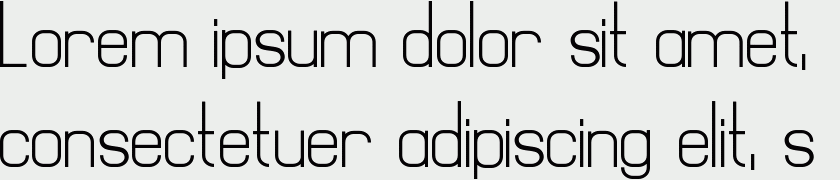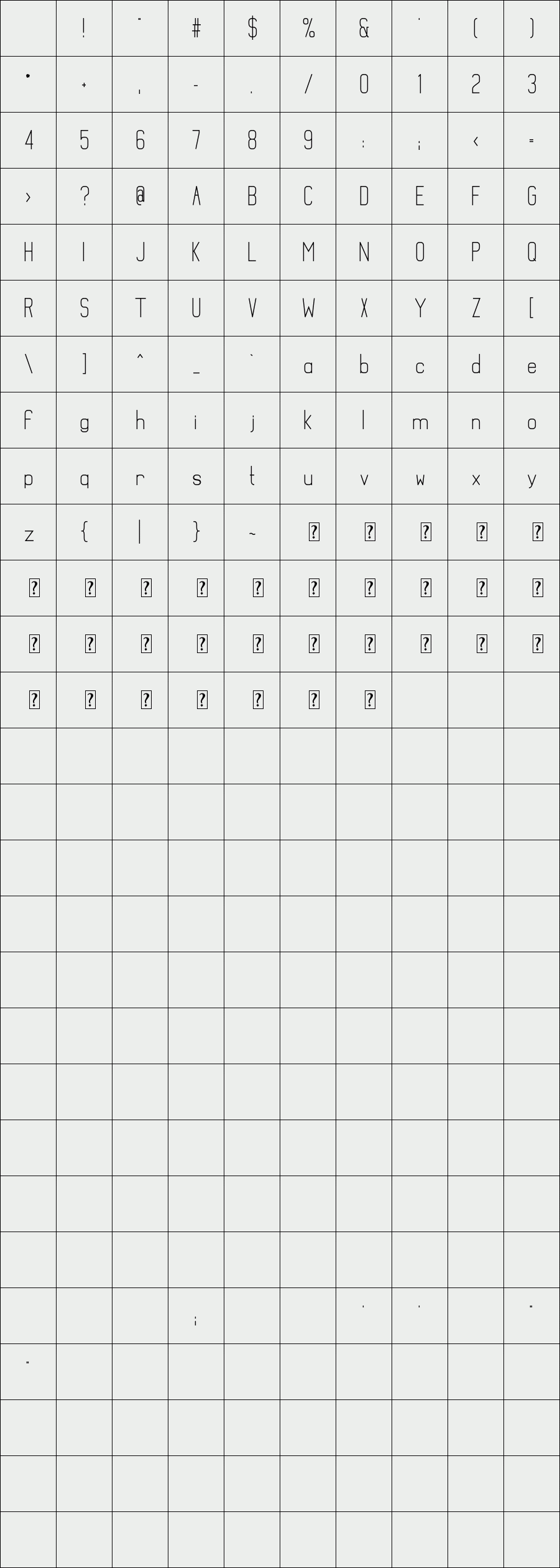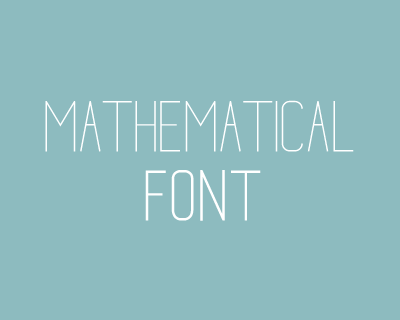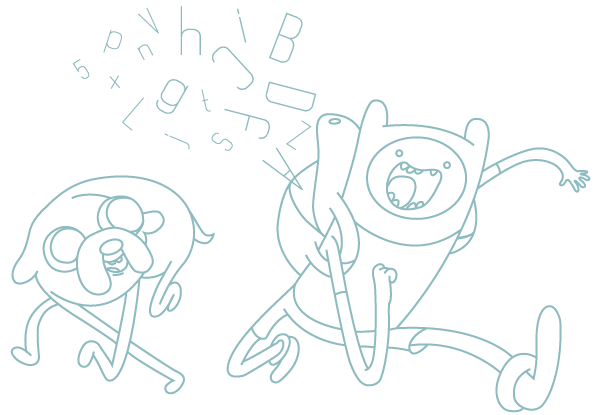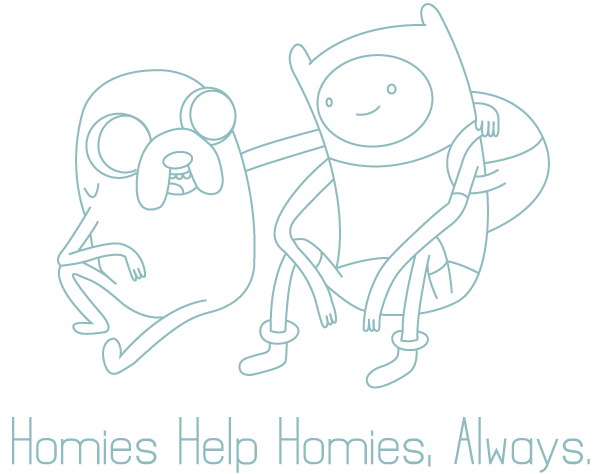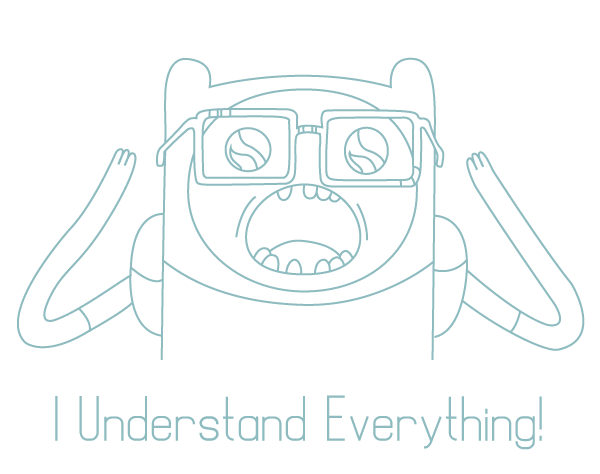
Mathematical
/ Mathematical Bold
This font was inspired by the typeface used in the Adventure Time DVD packaging. It has all necessary characters for the english keyboard.